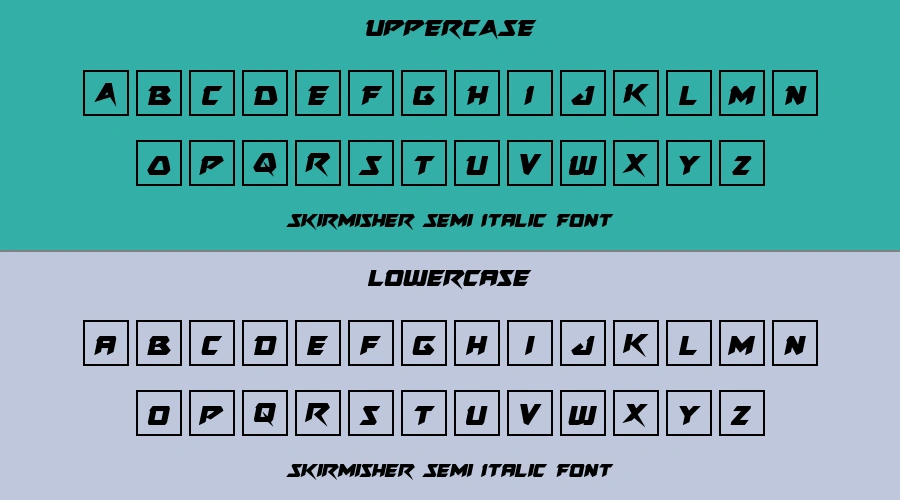
About Skirmisher Semi Italic Font
Designed with precision, Skirmisher Semi Italic Font merges concave curves with functionality in every character. This versatility makes it particularly effective for literary works, where functionality and refinement directly impact communication quality. Each letterform demonstrates meticulous craftsmanship.
Technical excellence shines through elements like ornamental caps and careful spacing, enhancing typographic versatility. In compliance seals settings, Skirmisher Semi Italic Font proves its worth through superior data presentation. The thoughtful execution of joint detail and creative versatility ensures professional results.